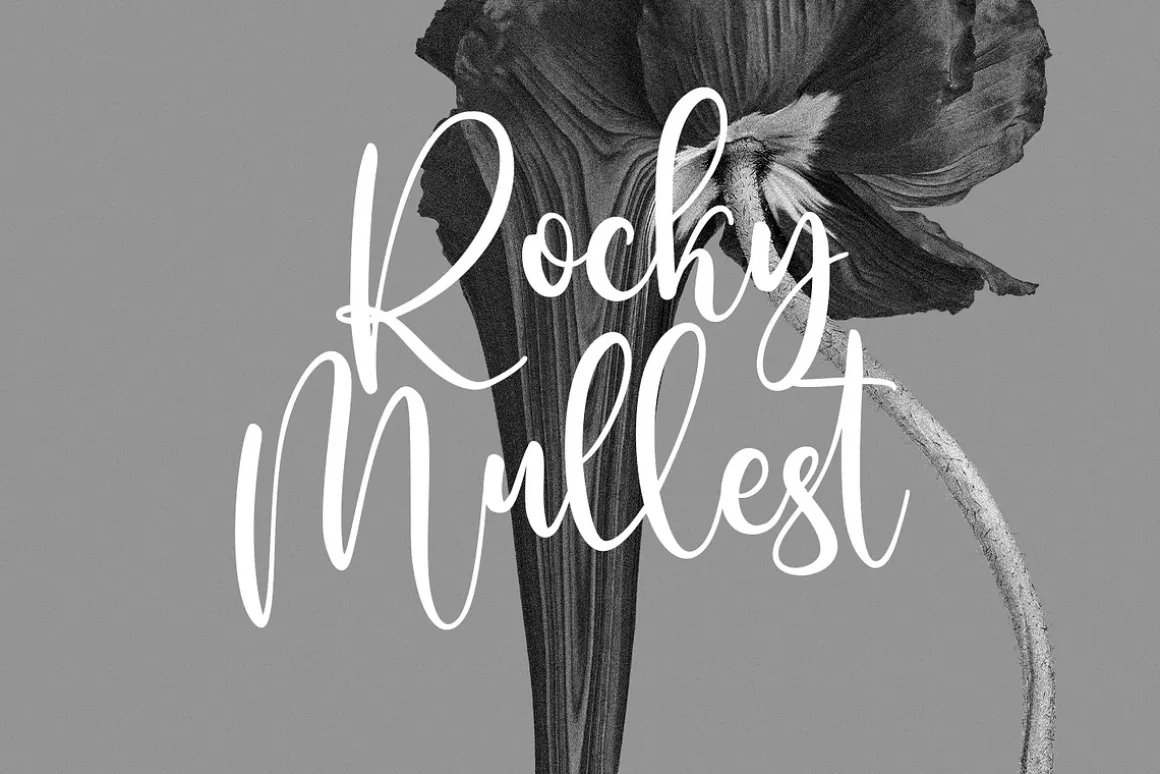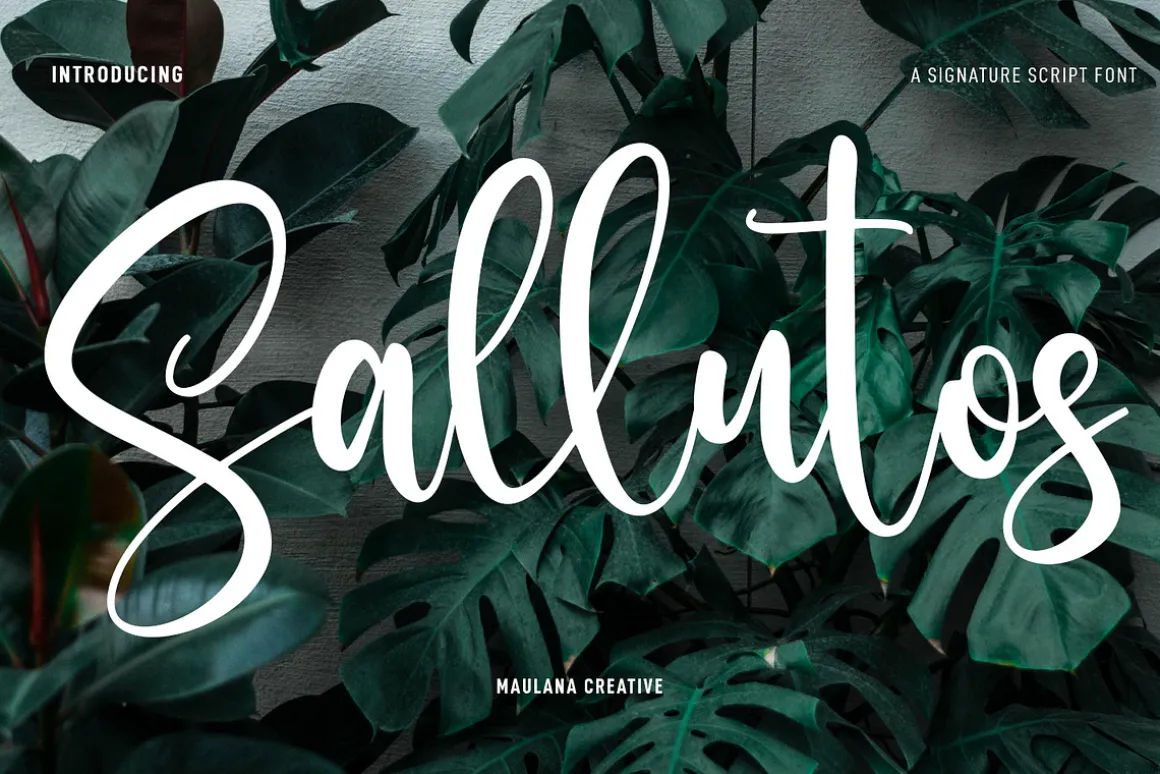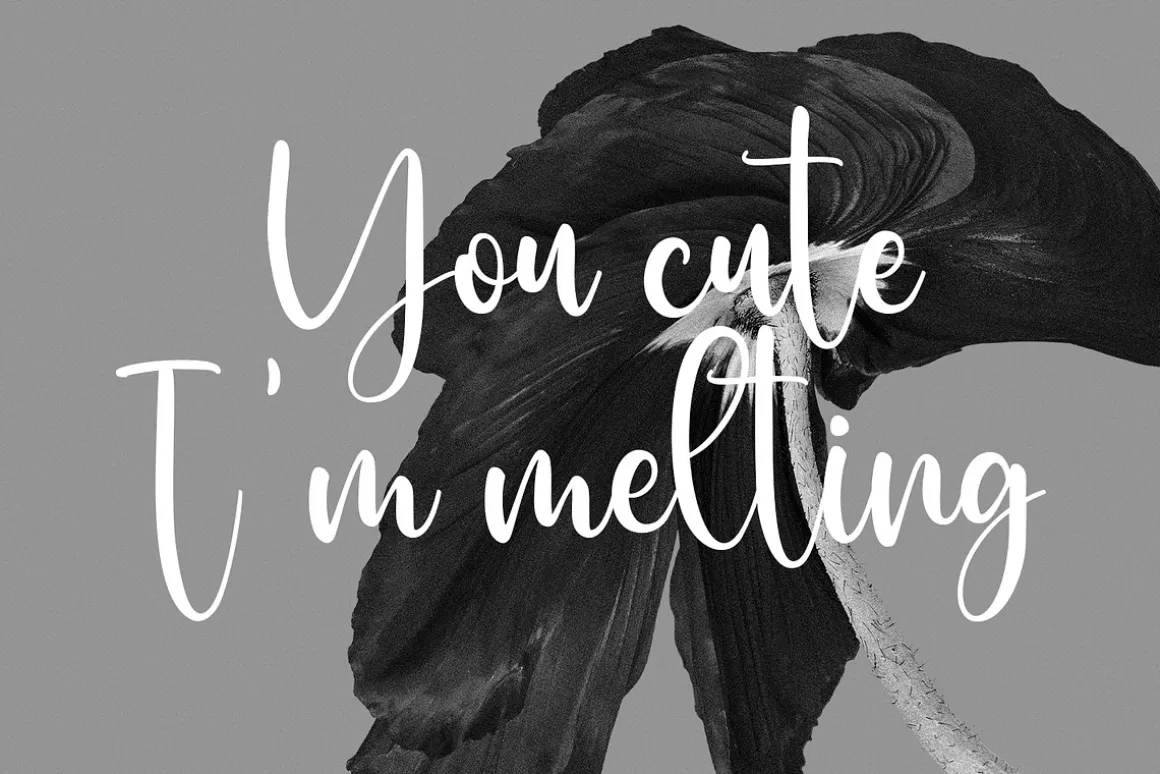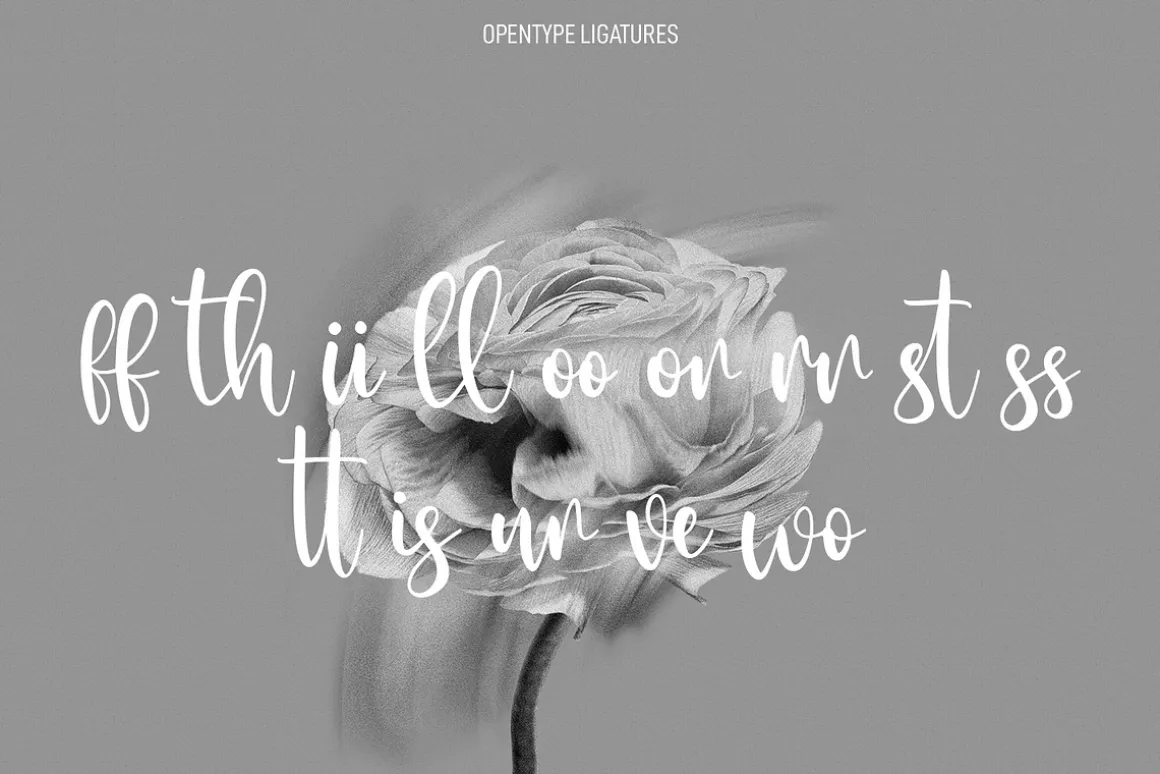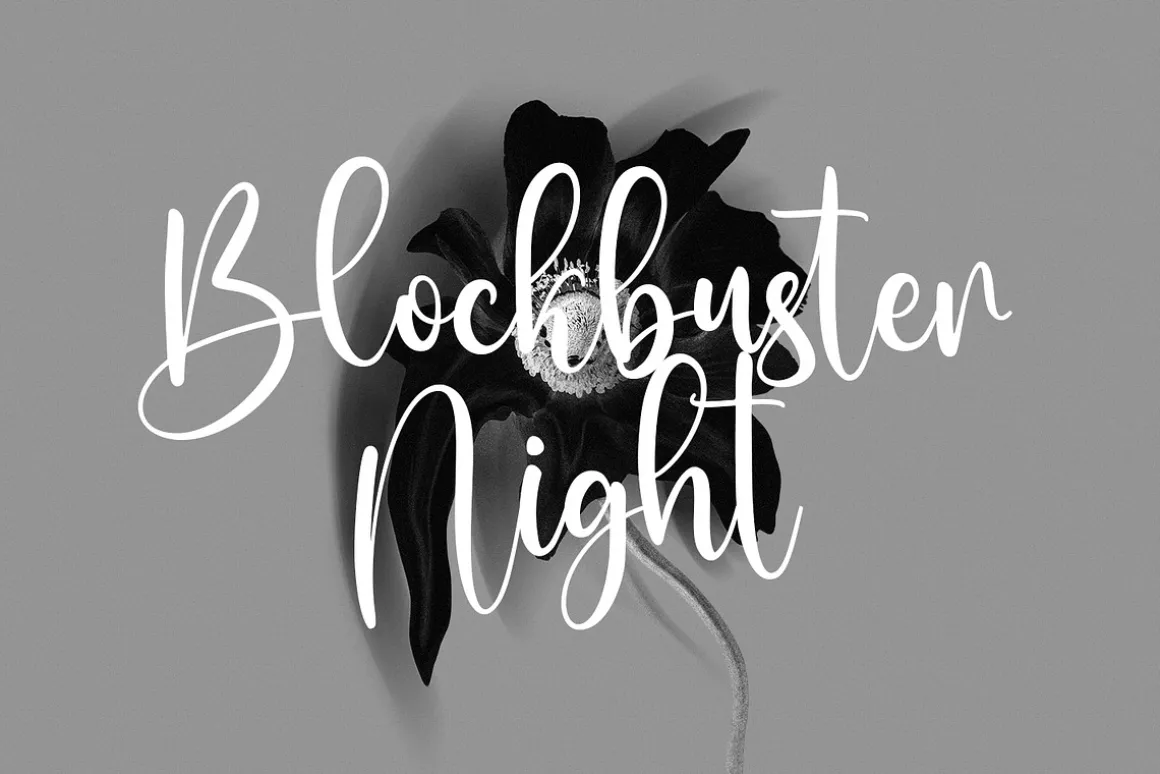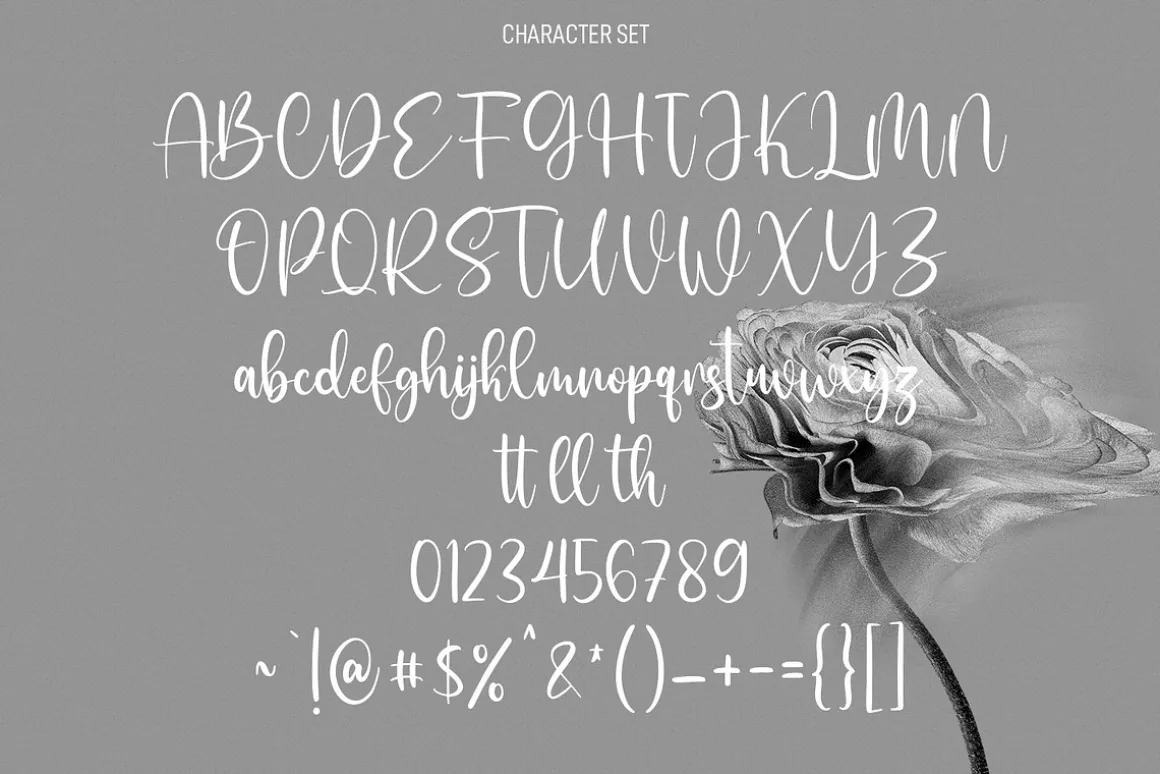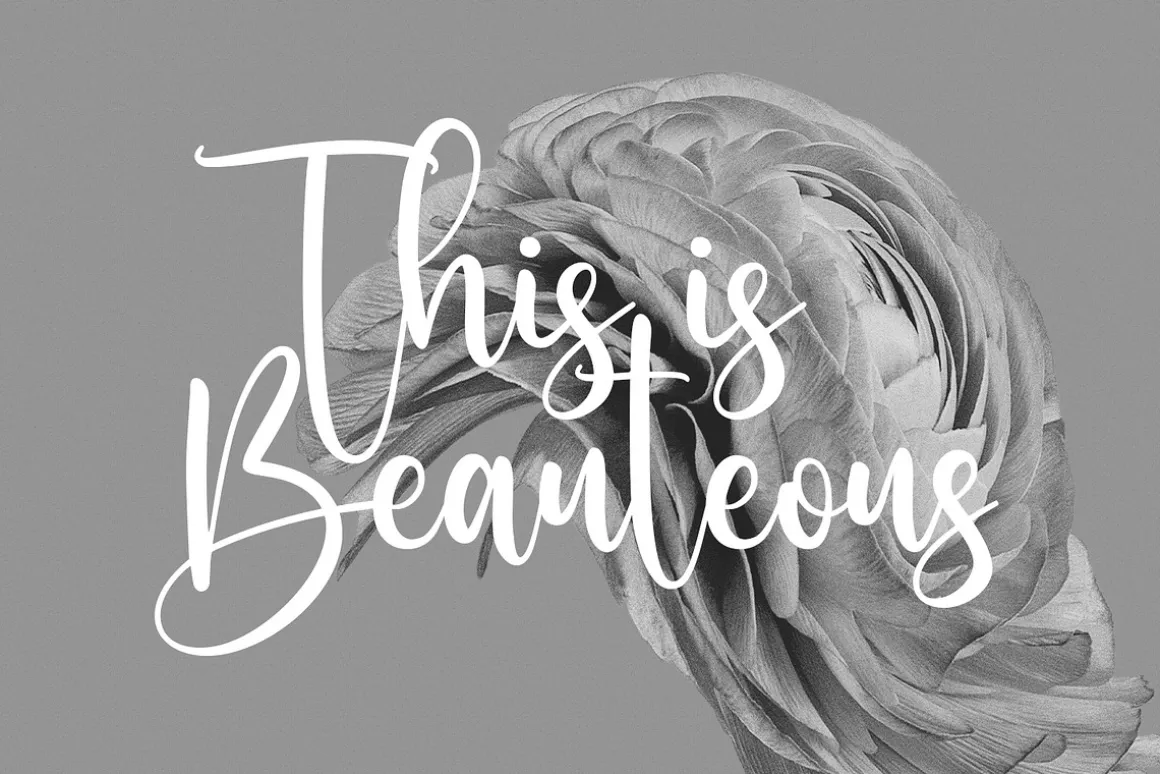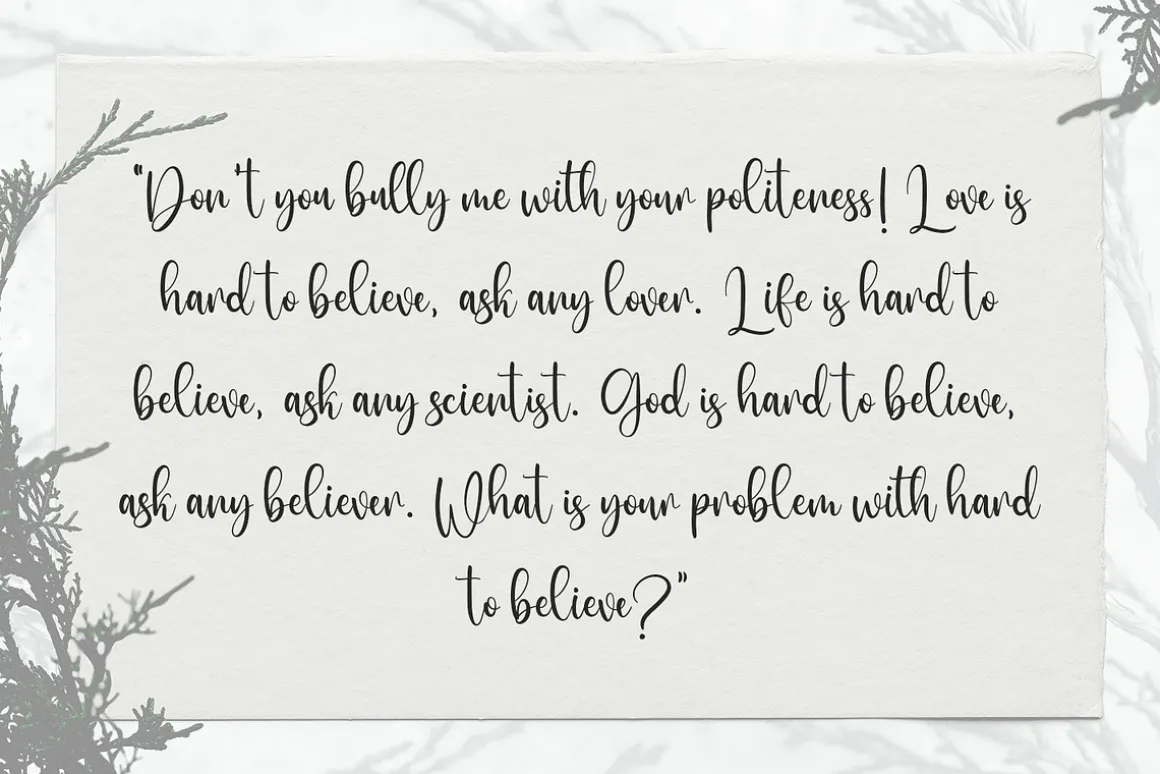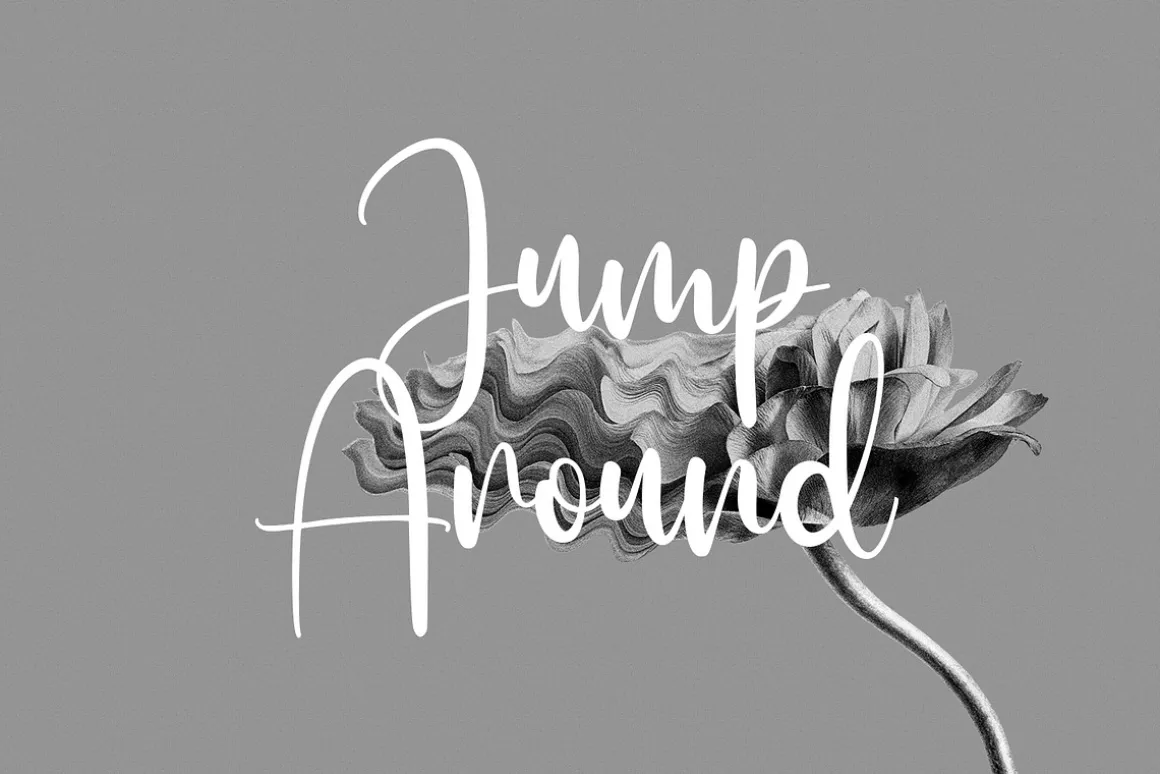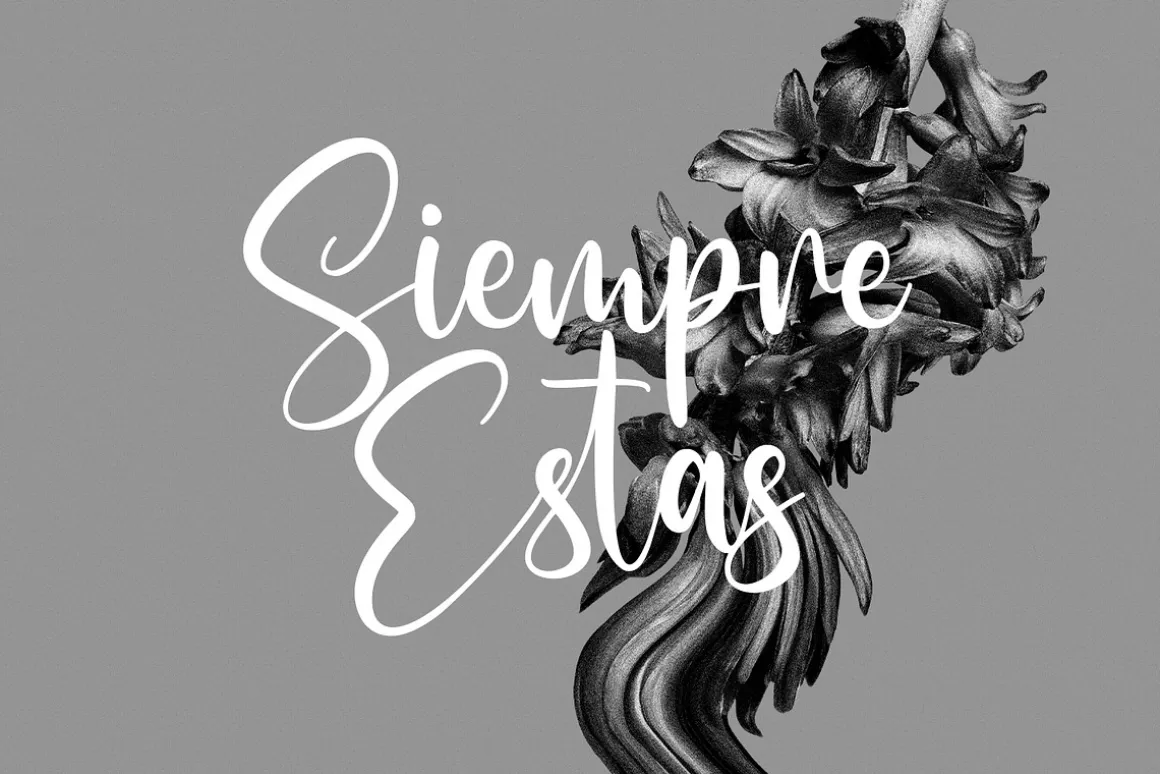
Sallutos is a casual signature script font. With regular contrast stroke, fun character with a bit of ligatures and alternates. To give you an extra creative work. Sallutos font support multilingual more than 100+ language. This font is good for logo design, Social media, Movie Titles, Books Titles, a short text even a long text letter and good for your secondary text font with sans or serif. Make a stunning work with Sallutos font.